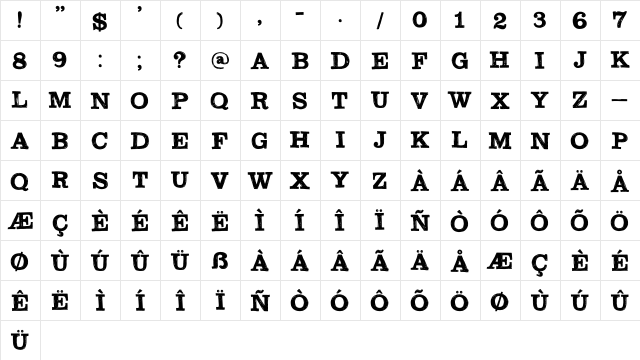
DK Southwark Regular
| Foundry | David Kerkhoff |
Design Context for DK Southwark Typeface
DK Southwark is a composed and adaptable typeface that performs quietly and consistently across a wide range of design contexts.